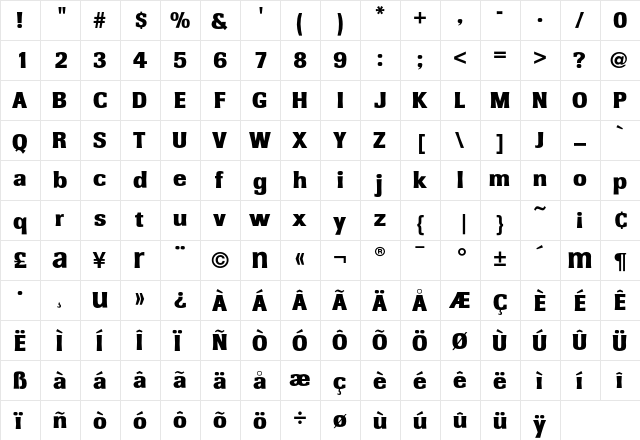
Cartel-ExtBld Regular
Design Context for Cartel-ExtBld Typeface
Cartel-ExtBld takes a measured approach to typography — its balanced proportions and neutral character make it a reliable workhorse for both digital and print work.
Pro Tip: Use Cartel-ExtBld in both headline and body roles to test its range before committing to a single application.